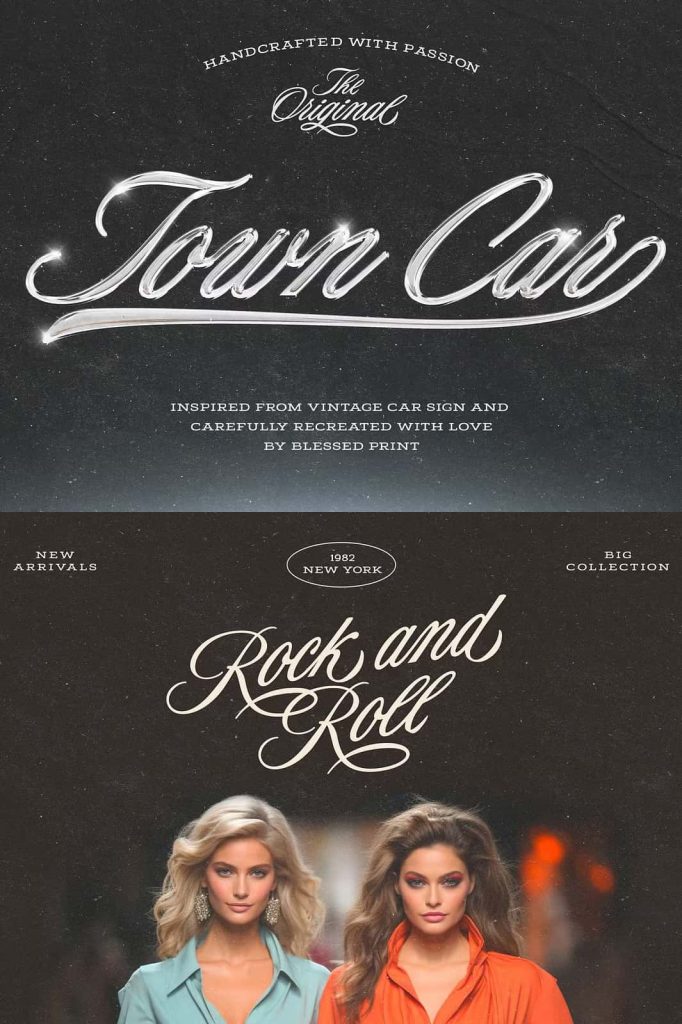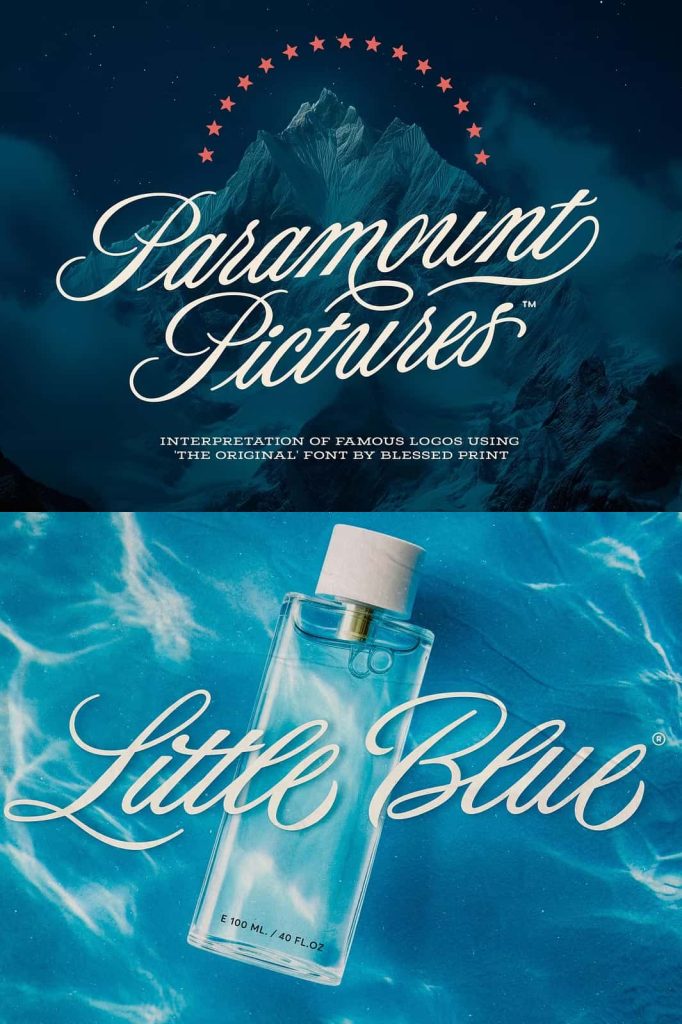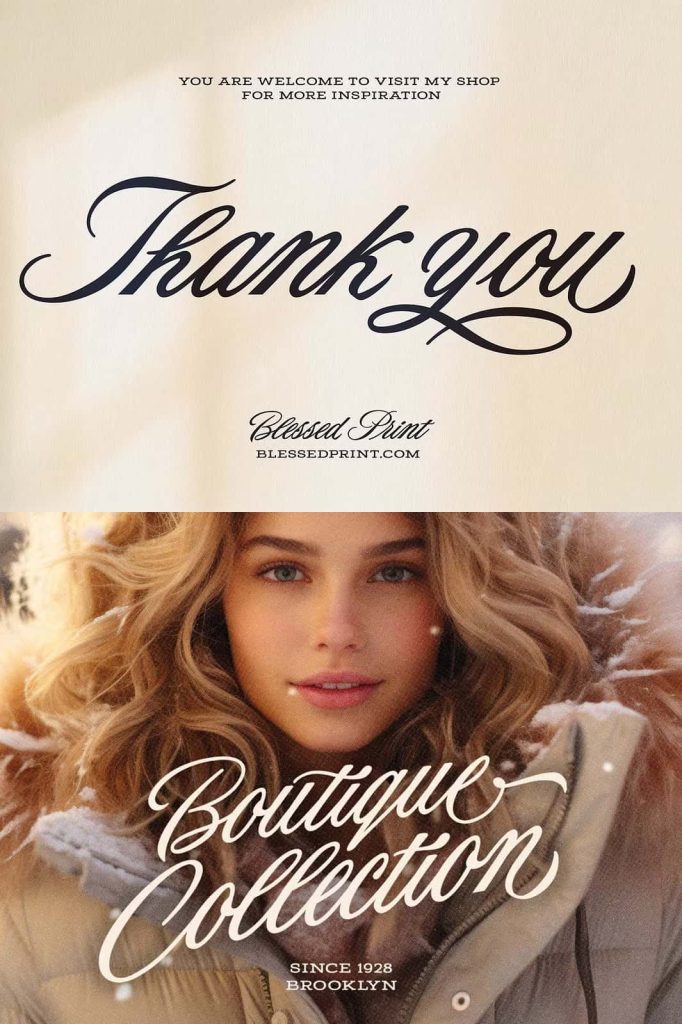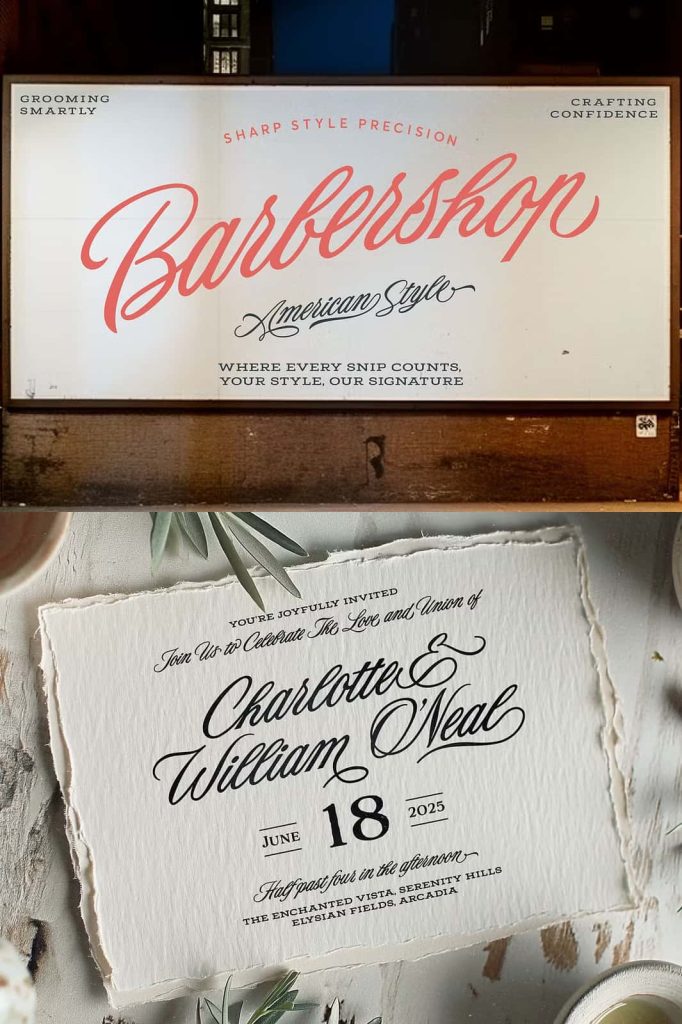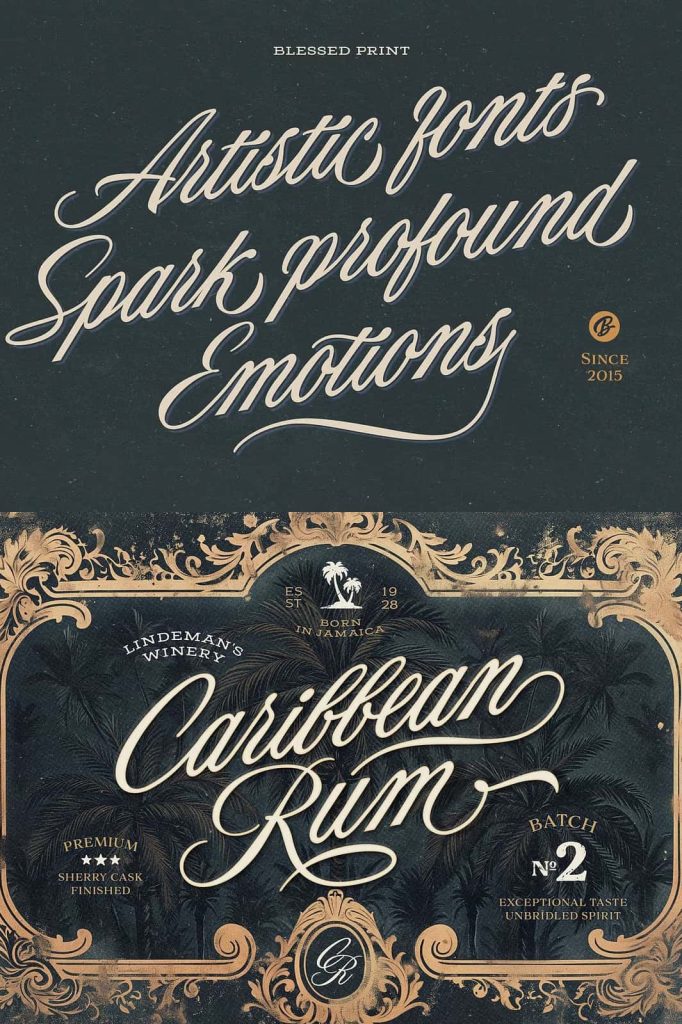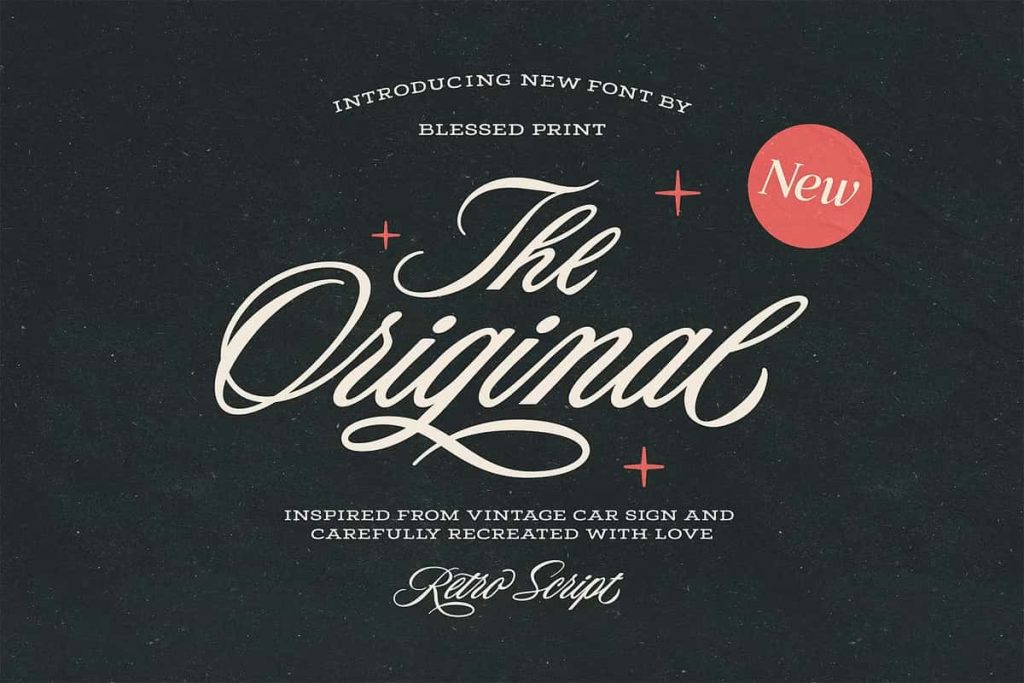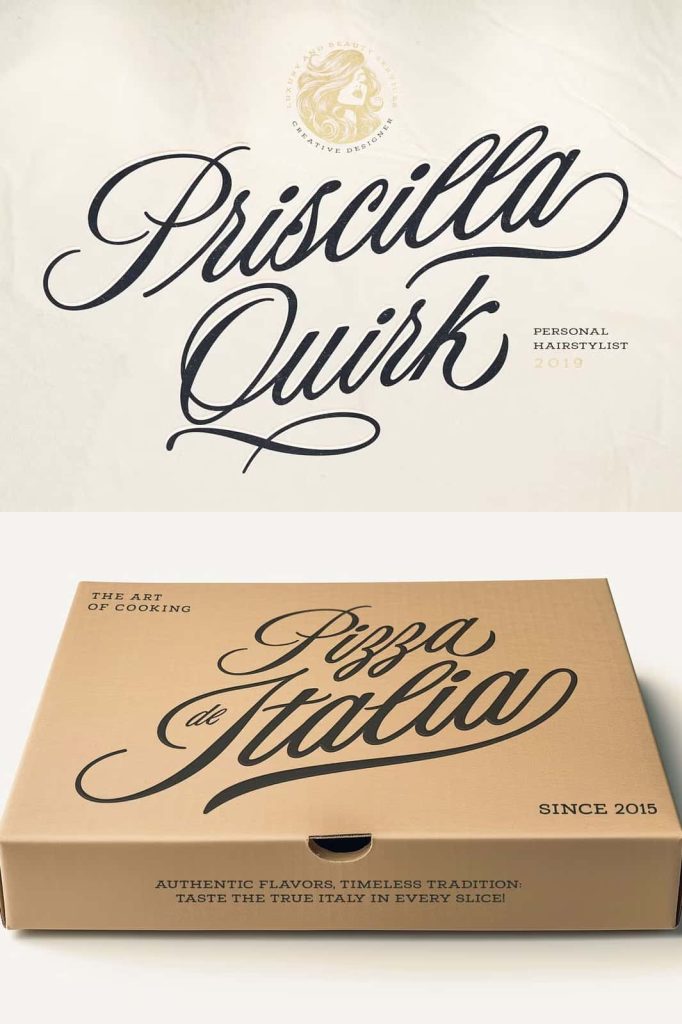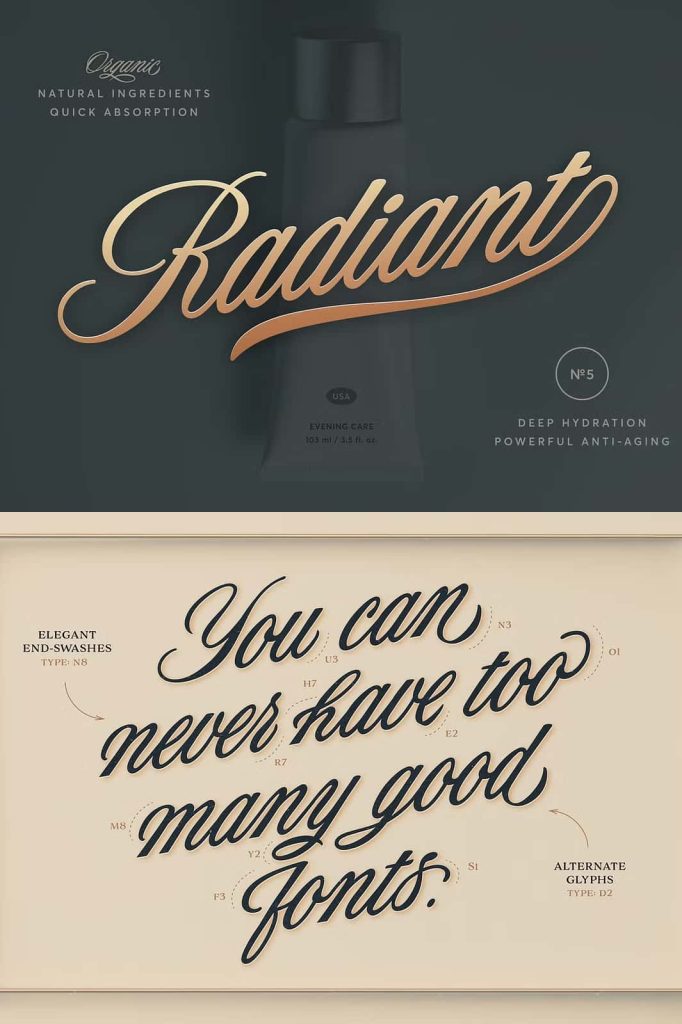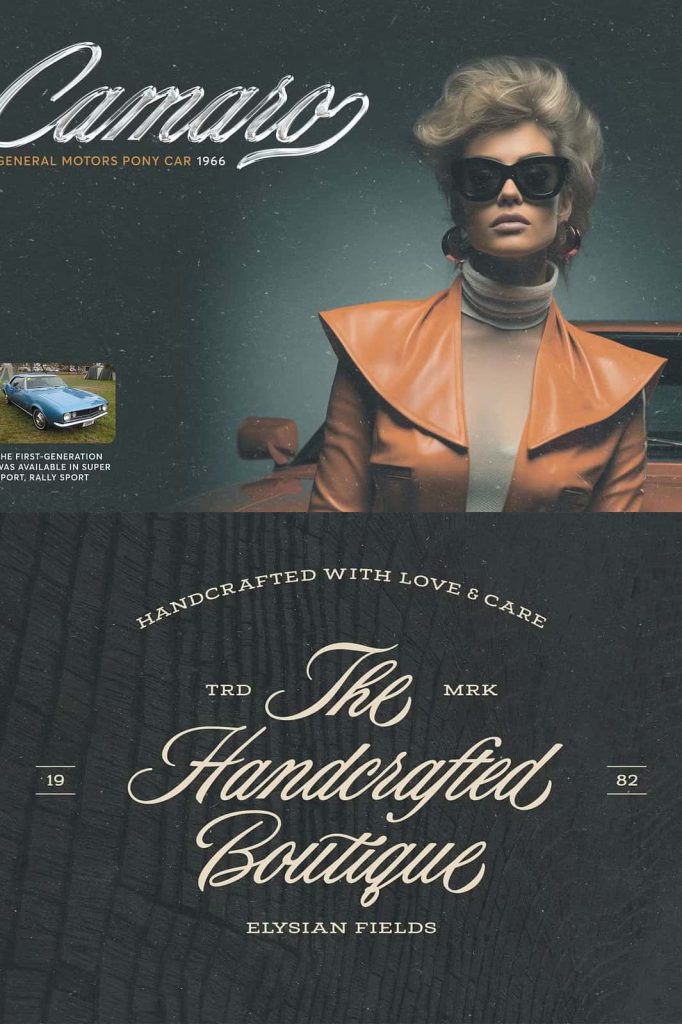
The Original Retro Script: A Classic American Script Font with Timeless Appeal
The Original Retro Script is an exquisitely crafted script font that brings the elegance and confidence of classic American design into modern creative projects. Inspired by the iconic “Town Car” emblem associated with vintage Lincoln automobiles, this typeface captures a refined sense of luxury, heritage, and craftsmanship. It reflects a time when lettering was expressive, deliberate, and deeply connected to identity and status.
This font does more than replicate a historical style. It revives the spirit of mid-century American penmanship and translates it into a versatile typographic tool that designers can confidently use across a wide range of applications. The Original Retro Script delivers nostalgia while maintaining clarity, balance, and usability.
Inspired by Iconic Automotive Lettering
The design of The Original Retro Script draws direct inspiration from the elegant script used in classic automobile emblems, particularly the Town Car badge. These emblems symbolized prestige, comfort, and timeless style, and those same qualities are embedded into every letter of this font.
The flowing strokes and carefully sculpted curves echo the craftsmanship of hand-drawn lettering found on vintage vehicles. This influence gives the font a sense of motion and confidence, making it feel alive and expressive while remaining structured and readable.
Quintessential American Penmanship
At its core, The Original Retro Script celebrates traditional American penmanship. The letterforms feel natural and fluid, reflecting the discipline and elegance of handwritten scripts from a bygone era. Each character connects smoothly, creating a rhythm that enhances readability and visual harmony.
This commitment to authentic penmanship ensures that the font feels genuine rather than decorative. It communicates warmth, tradition, and craftsmanship, making it especially appealing for designs that aim to evoke trust and familiarity.
Elegant Swashes and Unique Characters
The Original Retro Script includes a thoughtful selection of unique characters and elegant swashes that allow designers to elevate their typography. These features add flair and sophistication without overpowering the design. Swashes can be used selectively to highlight key words, create custom logos, or add visual interest to headlines.
The availability of alternate characters encourages creativity and customization. Designers can adjust the tone of their work by choosing subtle or more expressive letterforms, ensuring that each project feels intentional and tailored.
Designed to Enhance Logos and Headlines
This script font excels in logo design, where personality and memorability are essential. The Original Retro Script creates wordmarks that feel refined, confident, and timeless. Its flowing structure helps logos stand out while maintaining a sense of balance and professionalism.
In headlines and titles, the font delivers strong visual impact. The elegant curves draw attention and guide the eye naturally across the text, making it ideal for posters, signage, editorial layouts, and promotional materials.
Perfect for Branding, Packaging, and Nostalgic Design
The Original Retro Script works exceptionally well in branding projects that seek to convey heritage, quality, and authenticity. It pairs beautifully with retro-inspired visuals, classic color palettes, and minimalist layouts. This makes it a strong choice for lifestyle brands, automotive-related projects, hospitality businesses, and premium products.
Packaging designs benefit from the font’s nostalgic character and refined elegance. Whether used on labels, boxes, or promotional materials, the script adds emotional value and a sense of history that resonates with audiences.
Versatile Across Print and Digital Media
Although rooted in vintage inspiration, The Original Retro Script performs reliably across modern platforms. In print, its smooth strokes reproduce cleanly and maintain their elegance at various sizes. In digital environments, the font remains legible and visually engaging on screens.
This versatility allows designers to use the font consistently across websites, social media graphics, advertisements, and physical products without compromising quality or style.
A Typeface That Brings Nostalgia to Life
The Original Retro Script is more than a decorative typeface; it is a bridge between past and present. It brings the charm of classic American design into contemporary creative work, allowing designers to tell stories through typography alone.
By combining automotive-inspired elegance, authentic penmanship, and refined typographic features, this font delivers a timeless aesthetic that continues to inspire. The Original Retro Script stands as a dependable choice for designers who want to infuse their projects with nostalgia, character, and lasting visual appeal.